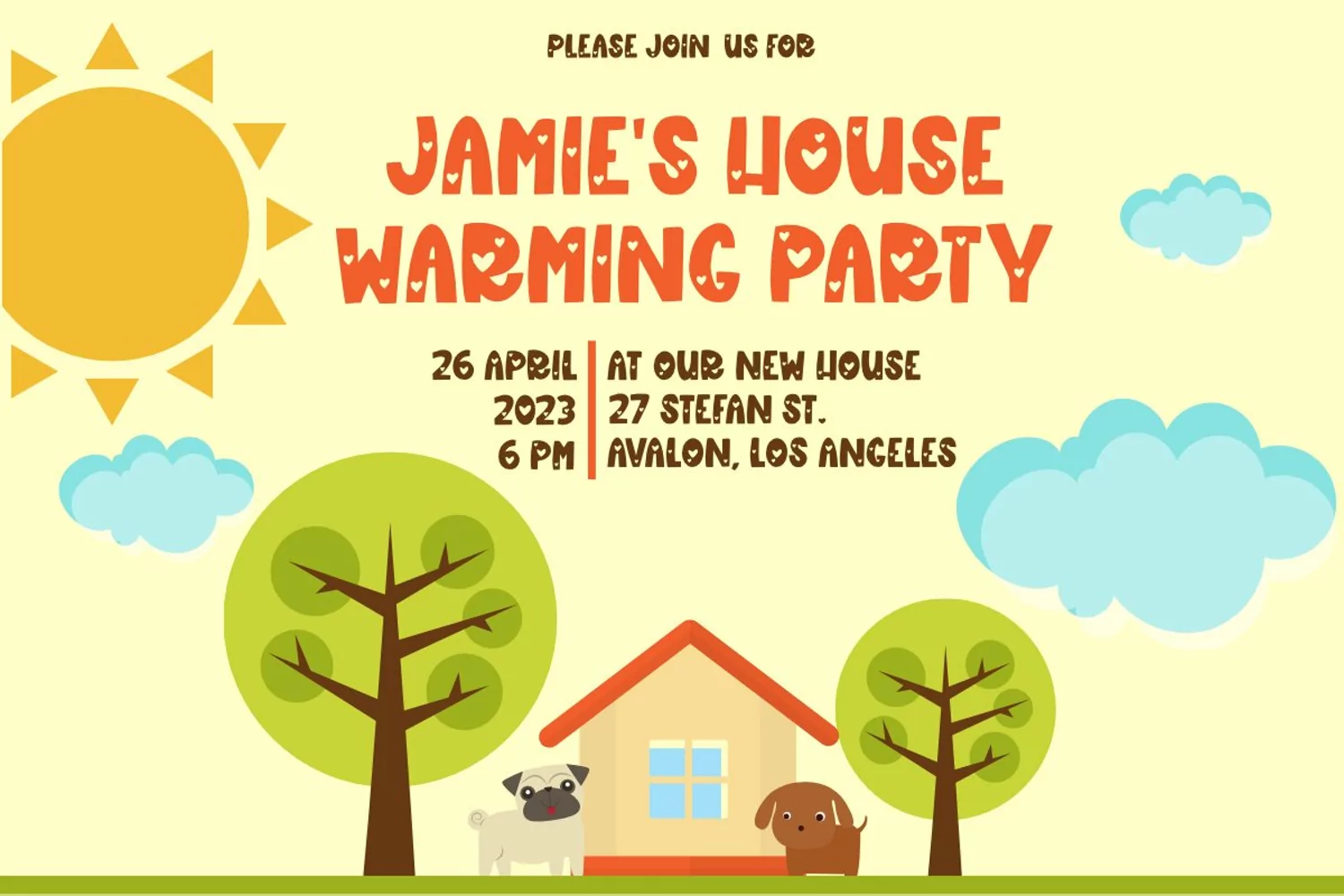
Lovely Garden Is a Handwritten cute Font with Love Decoration
This fonts is ideal for crafting, branding and decorate your any project. This fonts are perfect for wedding invitation or your blog. Also with their help, you can create a logo or beautiful frame for your home. Or just use for your business, book covers, stationery, marketing, magazines and more.
Lovely Garden